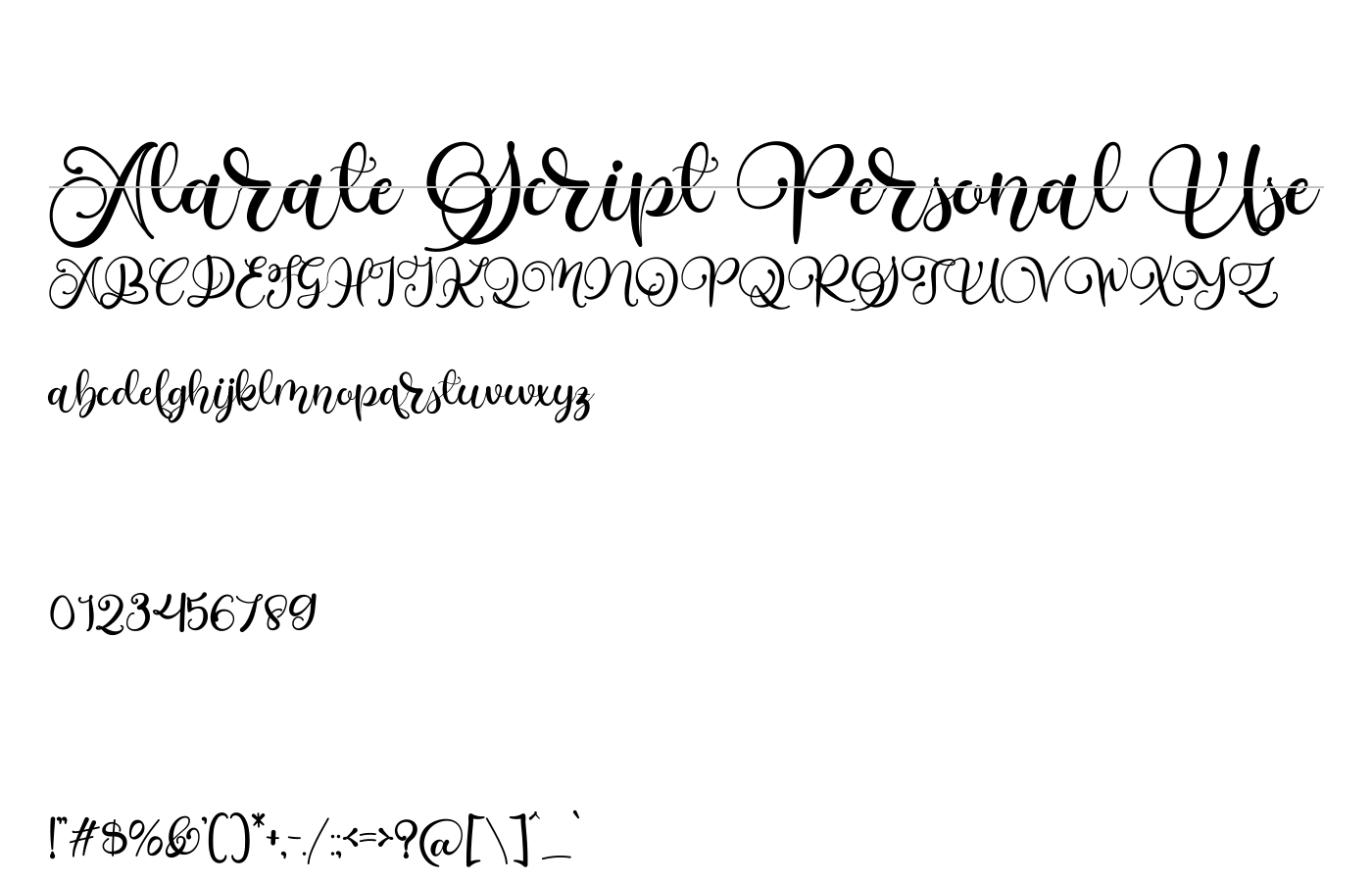
Alarate Script is an elegant and ornate script font featuring delicate, flowing strokes with high contrast and graceful swashes that lend a refined, handwritten feel. Its intricate uppercase letters and smooth, connected lowercase forms make it perfect for sophisticated branding, invitations, and decorative headlines where a luxurious, personal touch is desired. This font works best in designs that aim to convey elegance and charm through a stylish, calligraphic aesthetic.
Alarate Script Personal Use Font
About Alarate Script Personal Use Font